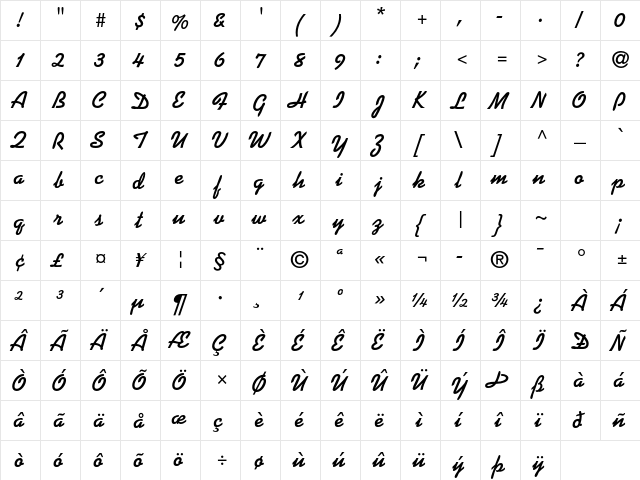
Kaufmann Std Bold Font Preview
Kaufmann Std Bold
Kaufmann Std Bold Font Details
| Designer | Max R. Kaufmann |
Design Context for Kaufmann Std Typeface
Kaufmann Std takes a measured approach to typography — its balanced proportions and neutral character make it a reliable workhorse for both digital and print work. Its bold stroke weight gives it real presence on the page.